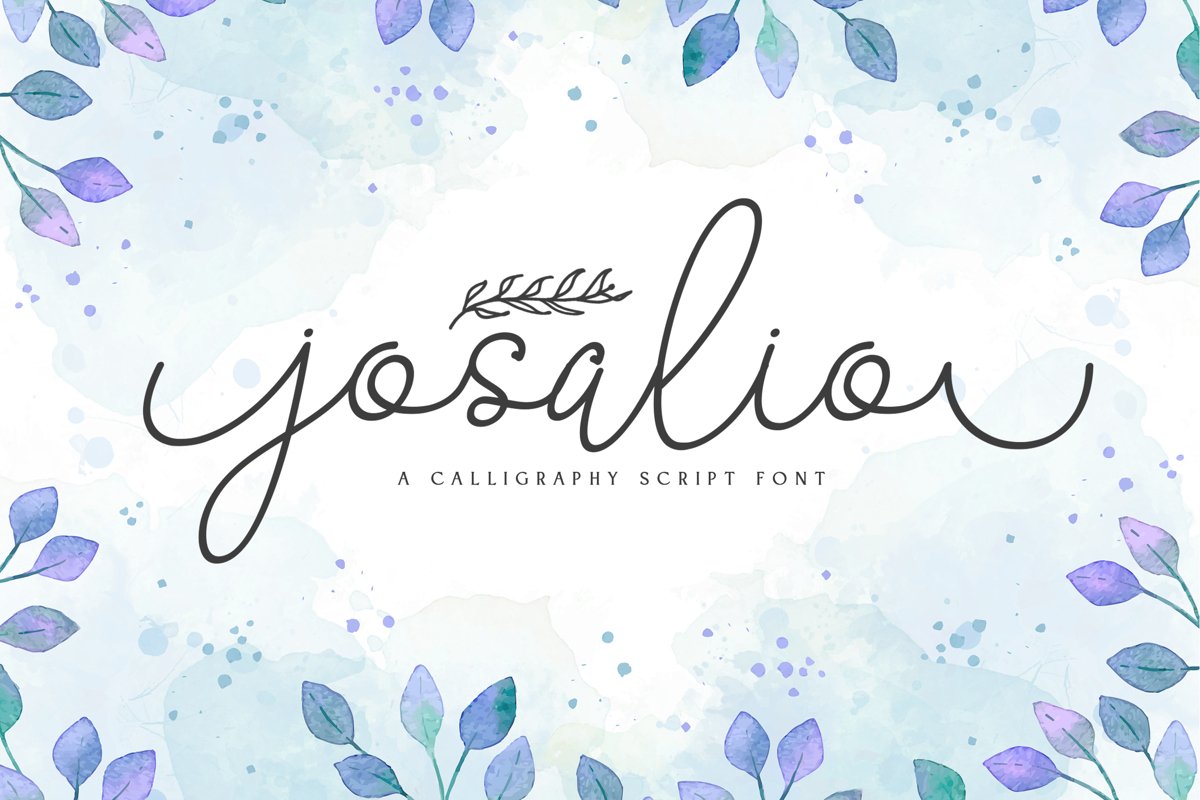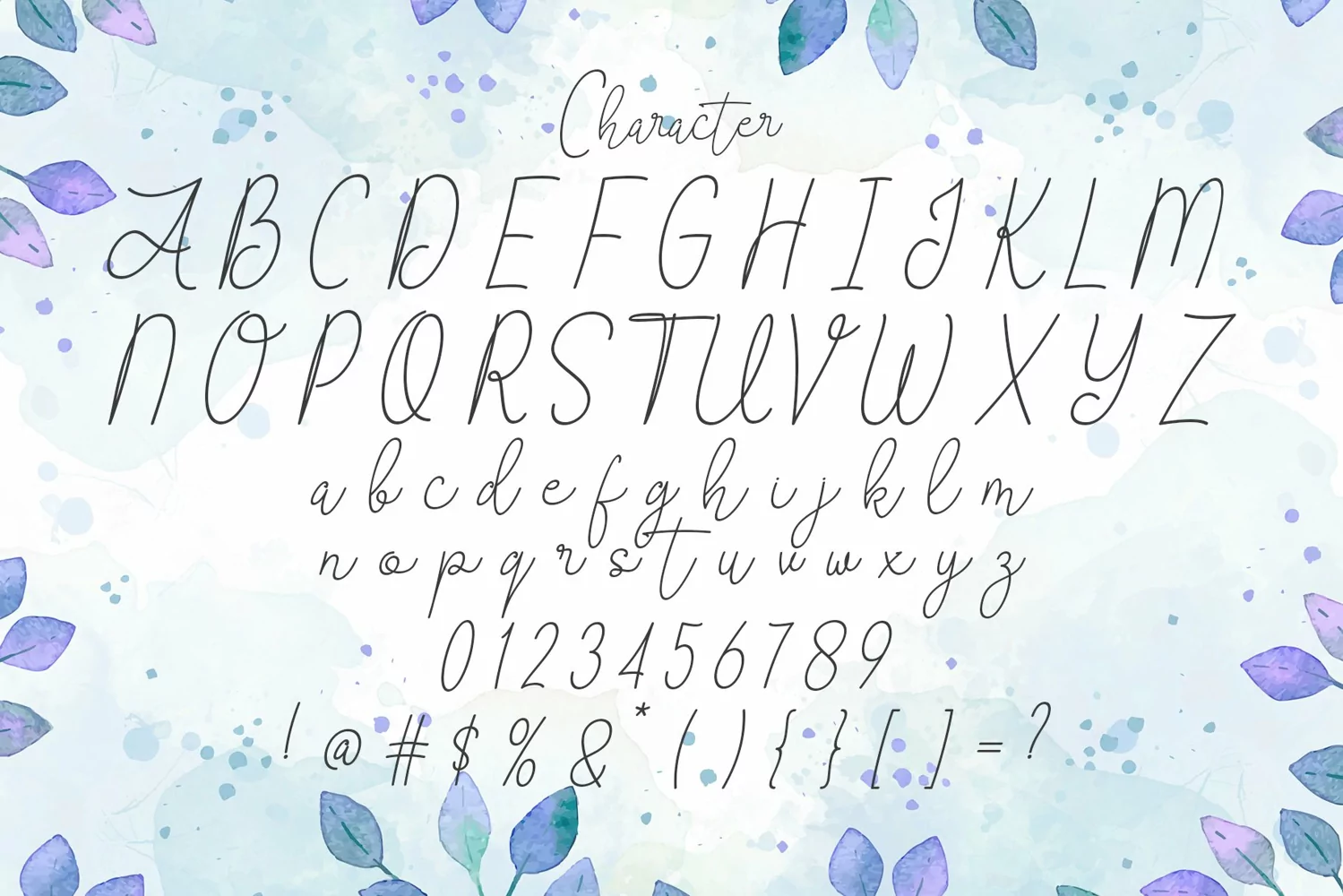
Josalio is a calligraphy script typeface. Perfect for display, quotes, posters, signature, florist needs, wedding needs, logo, logotype, branding, business card, crafting needs, print, t-shirt, mug, merchandise, packaging, and many more.